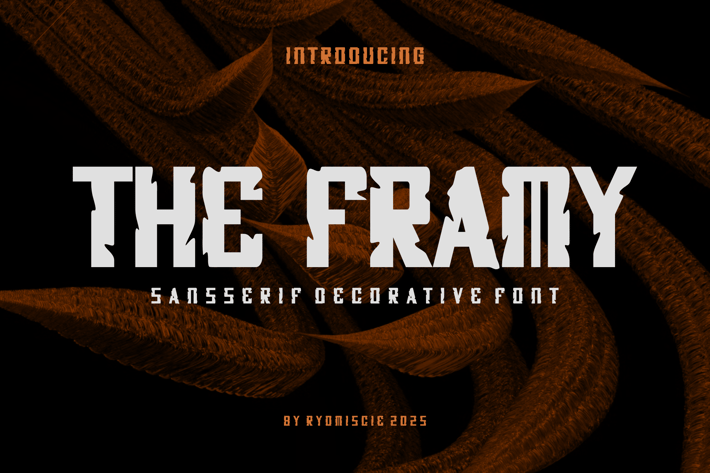
The Framy Font
Introducing our new product The Framy Font - Modern Font
The Framy Font- Modern Font is a bold and authentic display font. The font is suitable for any branding project like logo,
t-shirt printing, esport, and many more. outstanding in a wide range of contexts.
* The Framy Uppercase